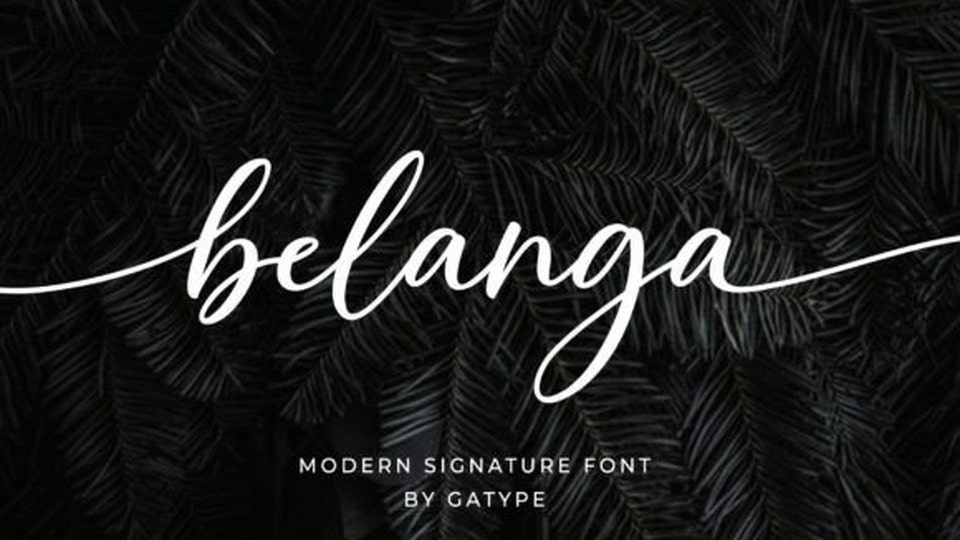
Download Belanga font, a smooth, elegant, and flowing handwritten typeface. Belanga has a beautifully balanced character and goes well with many designs.